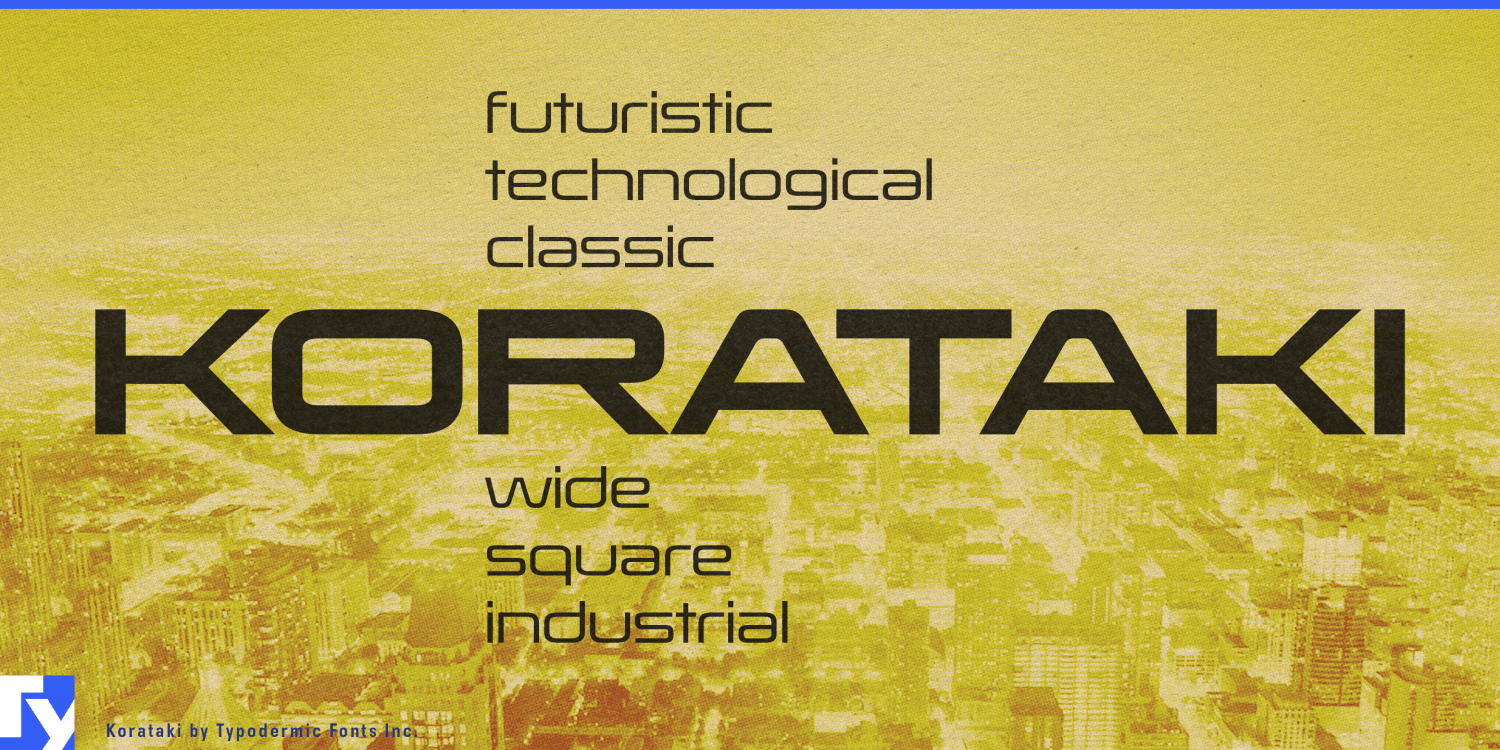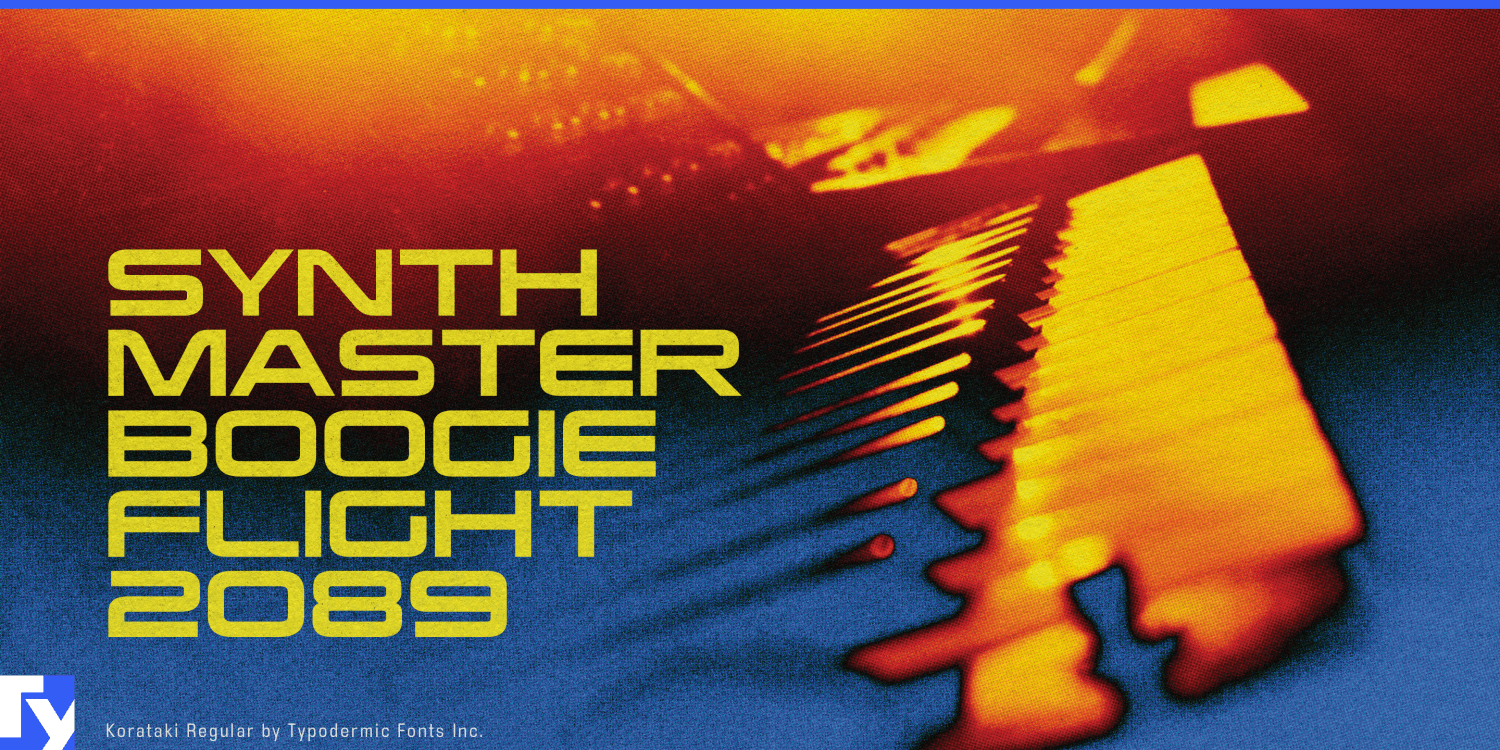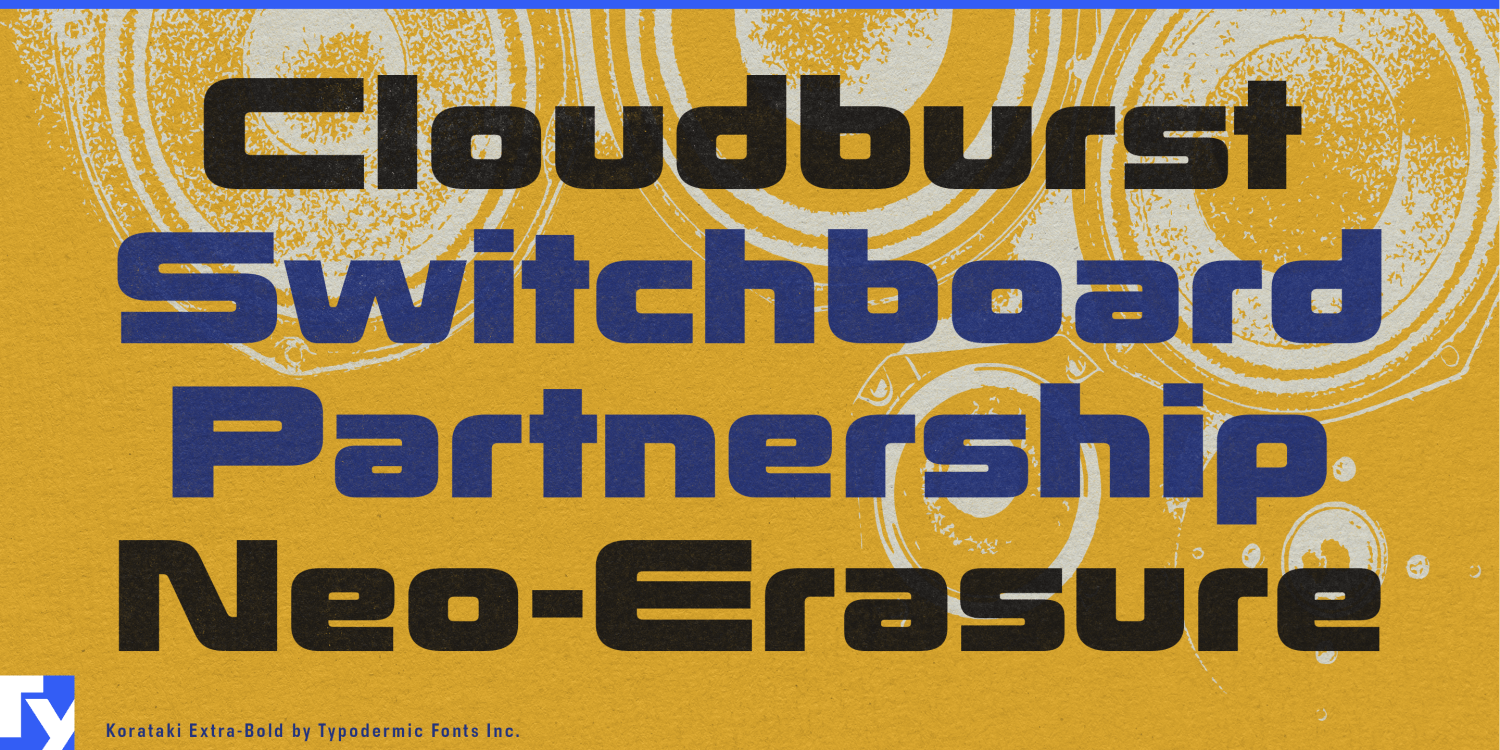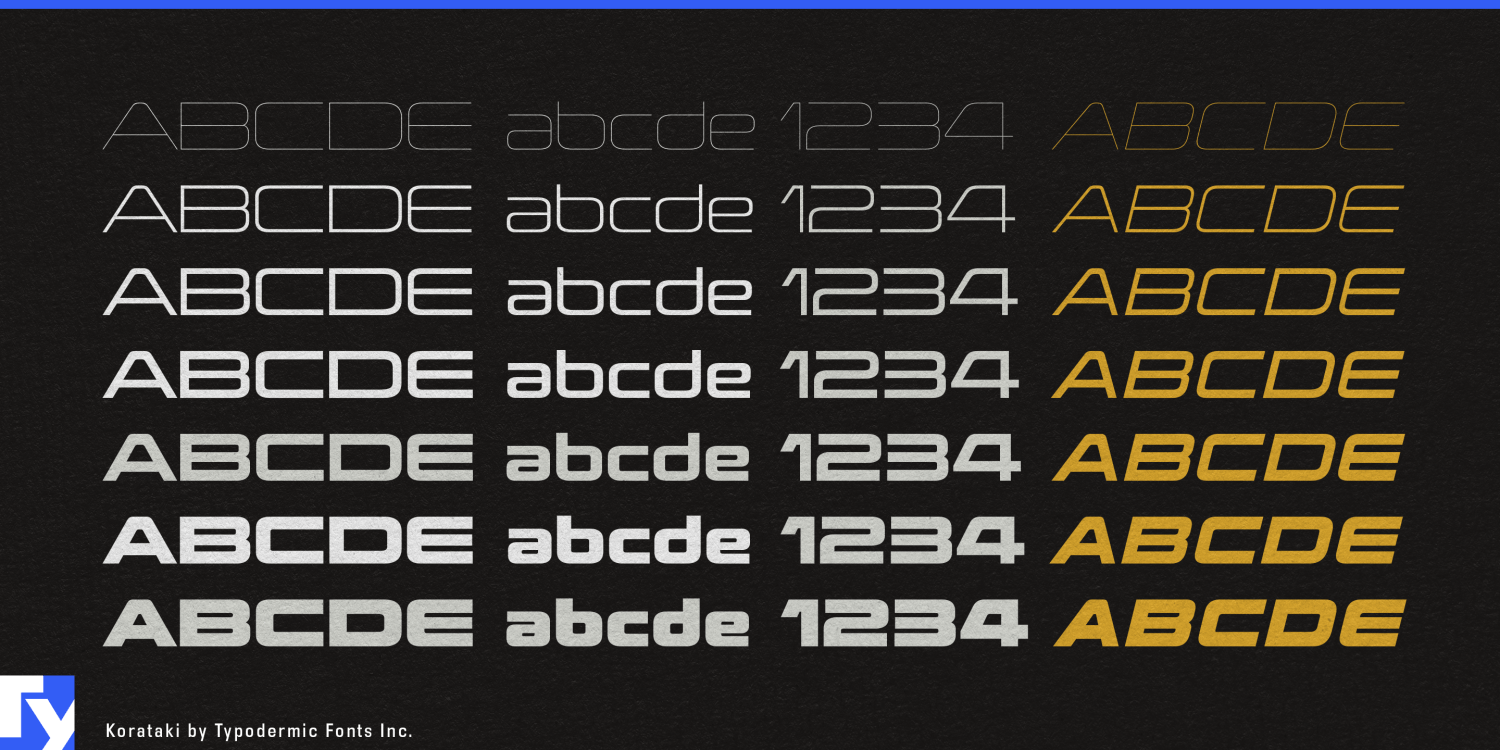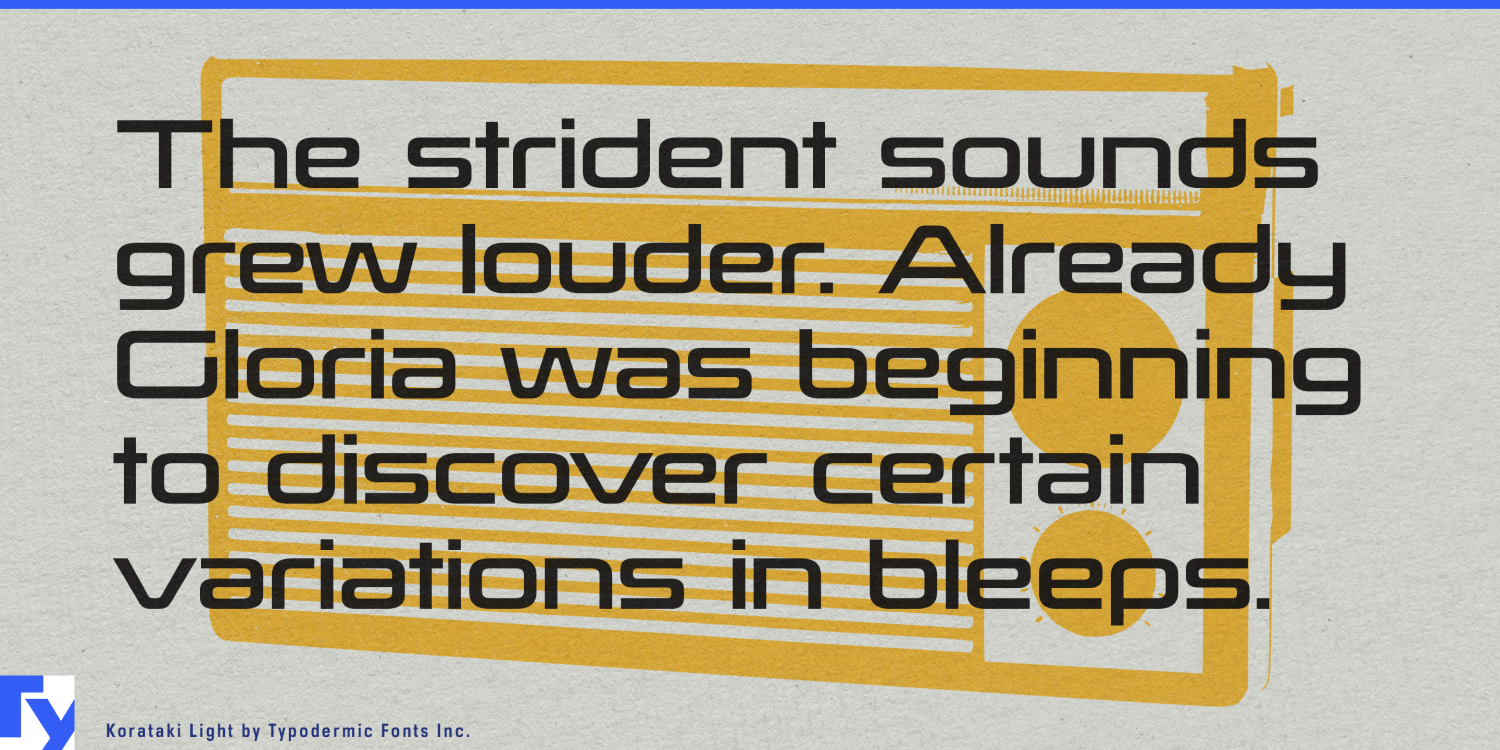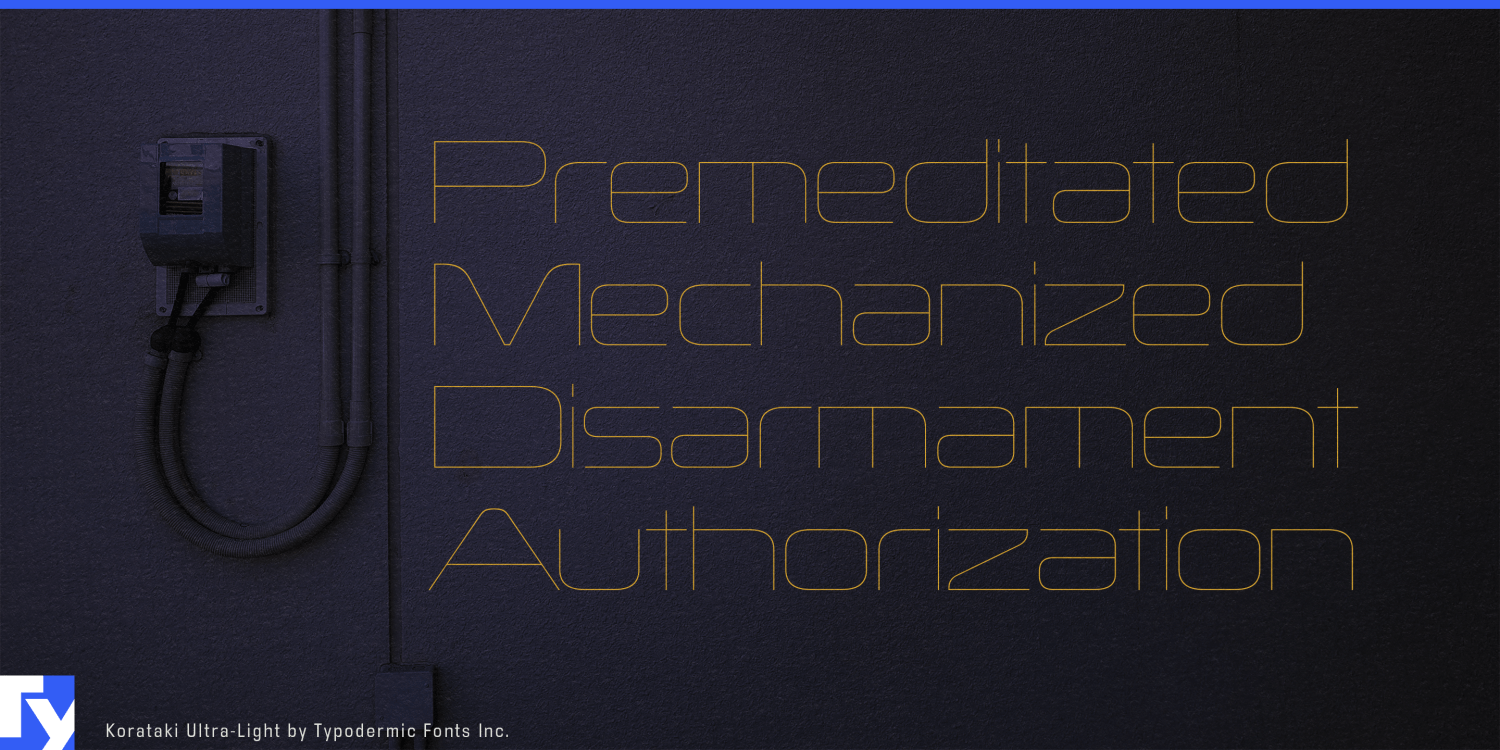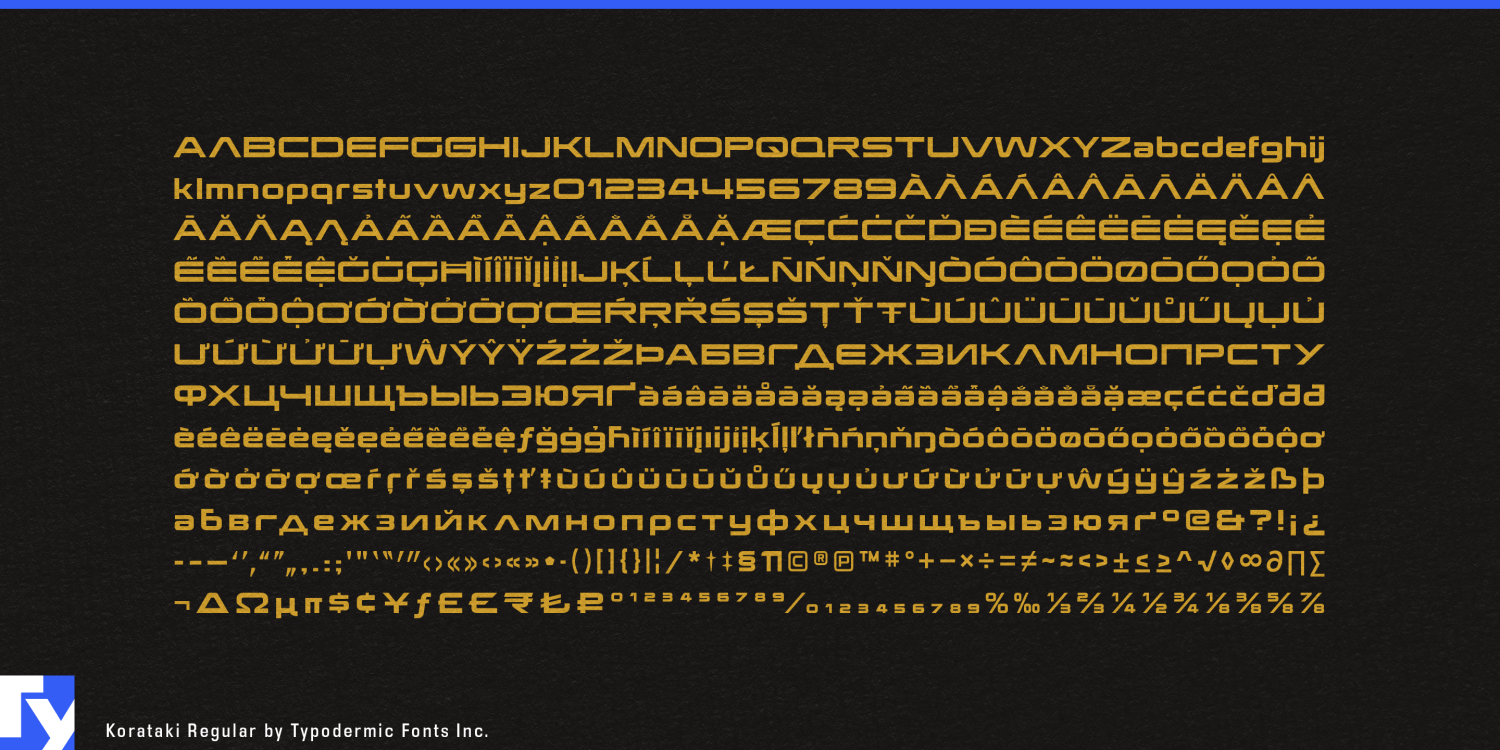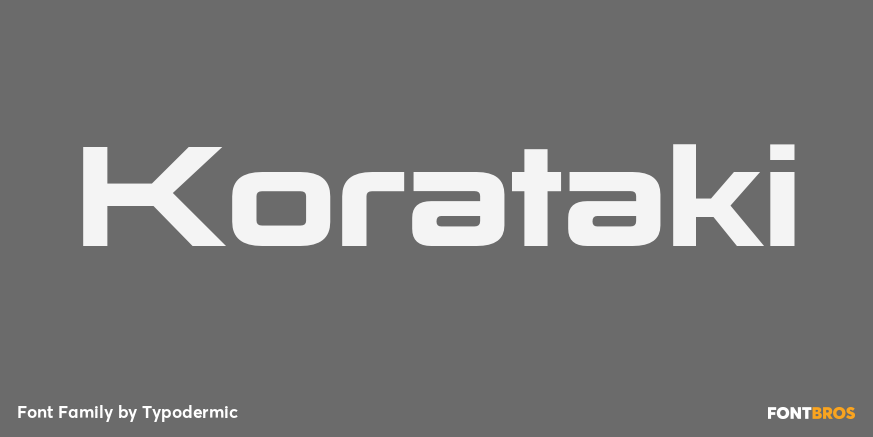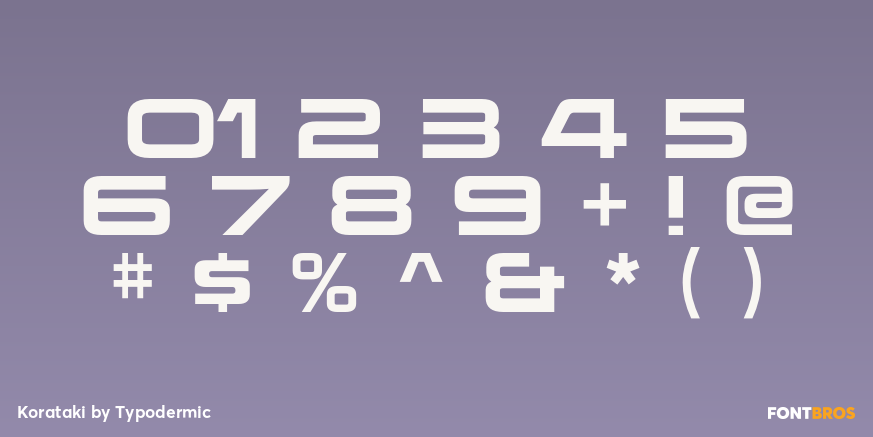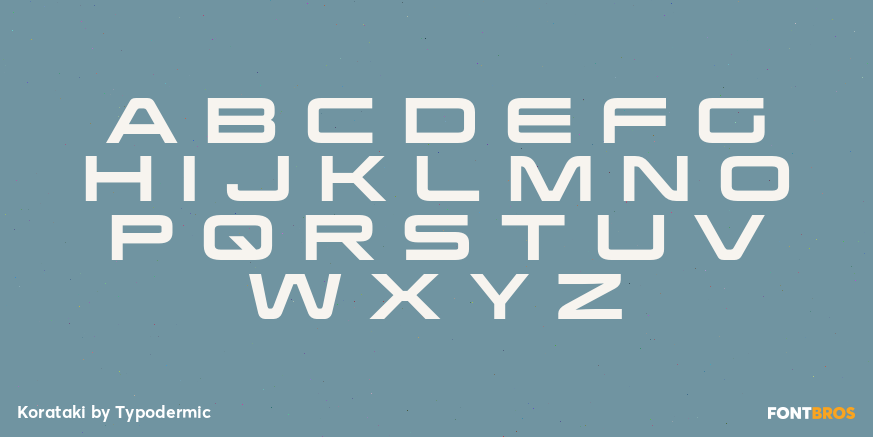
Korataki
Wide type has a practical advantage on long, shallow surfaces. Korataki’s expanded proportions let a name stretch across a frame tube, pipe, rod, rail, cabinet, or machine housing while keeping the letters comparatively low. Its squared curves and monolinear construction give those markings an engineered structure without falling into the usual narrow, aggressive vocabulary of technical display type.
Commercial delivery bikes and urban logistics equipment are especially good territory. Model names can run along down tubes, frame rails, battery enclosures, chain guards, and cargo modules; the same identity can extend to chargers, docking stations, fleet graphics, dealer displays, specification sheets, and launch campaigns. A manufacturer building two-wheel couriers, long-tail cargo bikes, heavy three-wheel carriers, and modular delivery systems can use Korataki to give the whole range a consistent visual architecture.
The same geometry suits tubular industrial products and linear machinery. Structural tubing, district-heating pipe, geothermal systems, industrial conduit, robotic arms, gantries, automated warehouse vehicles, and extrusion equipment all provide long surfaces where prominent product names and series designations can become part of the object itself rather than a small applied label.
Energy infrastructure gives Korataki room to operate at a larger scale. Grid-storage batteries, commercial EV chargers, solar inverters, heat-pump units, hydrogen-system enclosures, and modular power equipment can use broad product names and system identifiers across cabinets, housings, and installation walls, with the same visual language carrying into trade-show graphics, launch materials, facility signage, and technical presentations.
Performance equipment offers a more compact version of the same problem. Fishing rods, trekking poles, ski poles, paddle shafts, bicycle components, and other long sporting products provide plenty of length but little height; Korataki lets model names and series designations occupy that space with presence.
Korataki is built for projects where technology is physical: bikes, pipes, rods, robots, chargers, batteries, rails, and structural systems. Its width is more than a stylistic gesture; it gives designers a way to make lettering occupy long hardware with the same deliberate scale as the object carrying it.